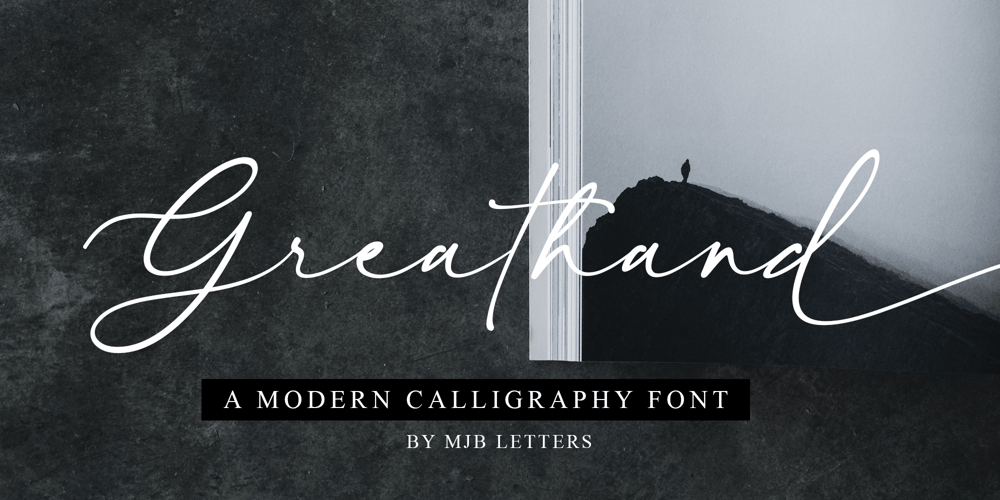
Greathand
Greathand font
Greathand Font Family was designed by Muhammad Mujibulloh and published by MJB Letters. Greathand contains 1 styles and family package options. “Greathand” is a modern calligraphy font that combines elegance and versatility, making it a popular choice for various design applications. This font stands out for its unique features and capabilities, making it a valuable asset for designers and creatives alike.Greathand is a versatile font suitable for a wide range of design projects. Its modern calligraphy style adds a touch of sophistication and personality to any text it’s applied to. This font is commonly used for branding, invitations, and typography art.